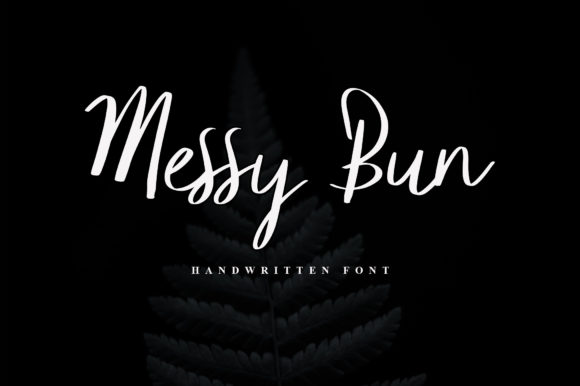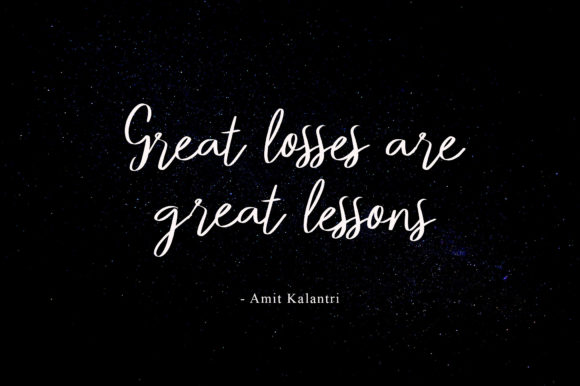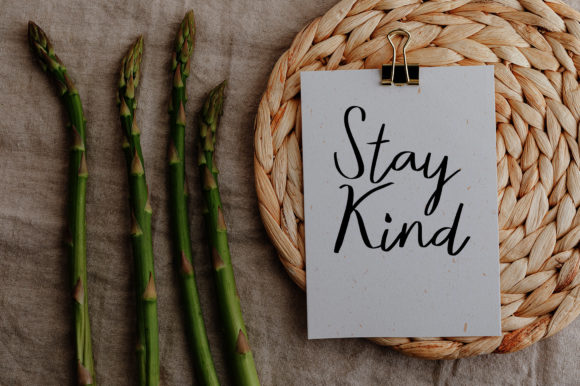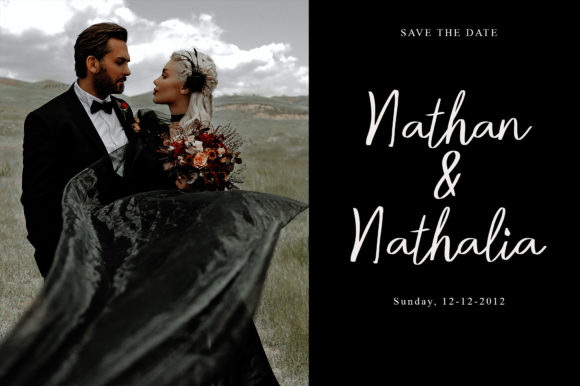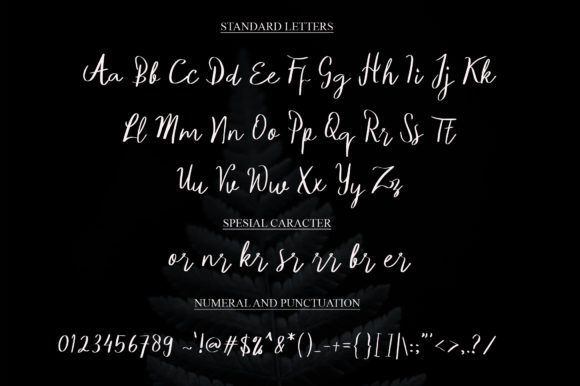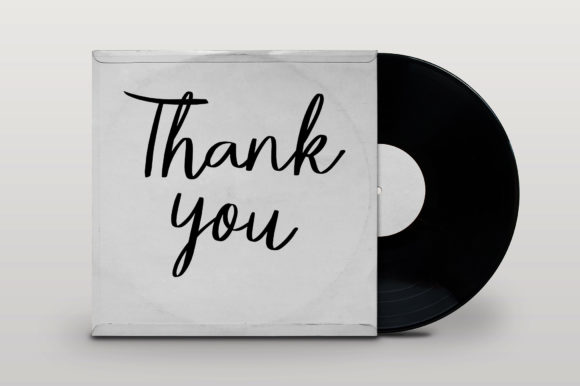
About Messy Bun Font
Messy Bun is a chic, refined script font that emanates sophistication and elegance. Its stylish alternates and ligatures make this font the perfect match for any project.